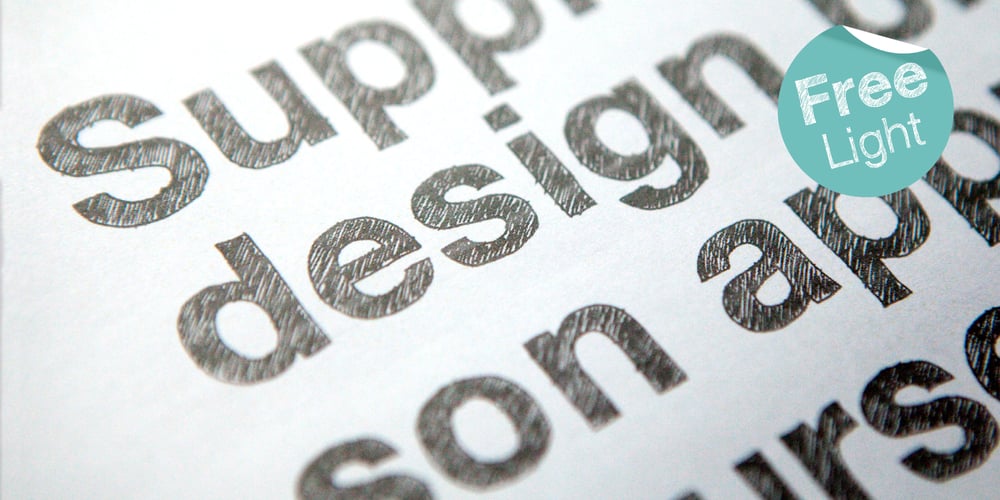
Sketchetik Font Family was designed by Ossi Gustafsson and published by Hiekka Graphics. Sketchetik contains 5 styles and family package options. Sketchetik is a hand-drawn font in four styles: light, regular, bold and black. It is recommended for use as a display typeface.